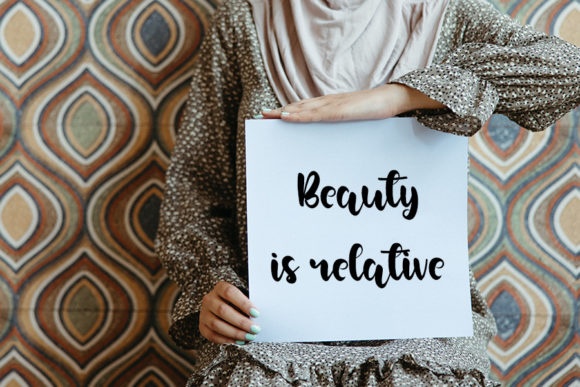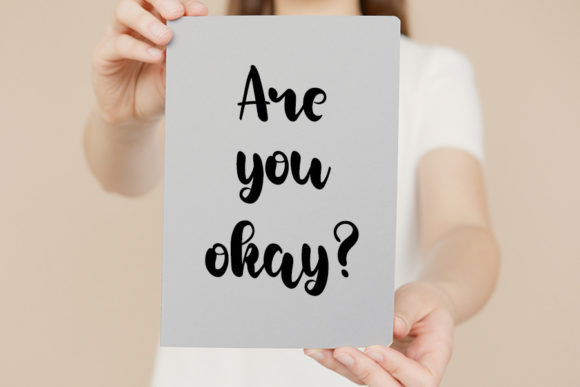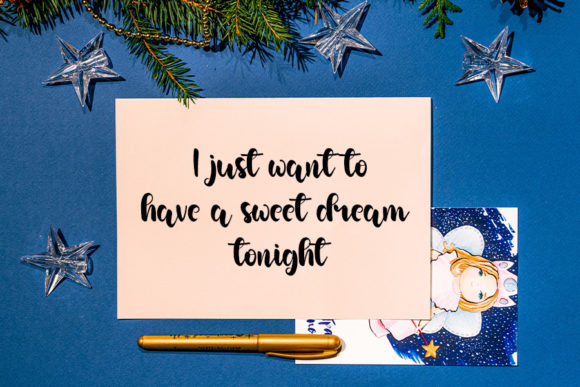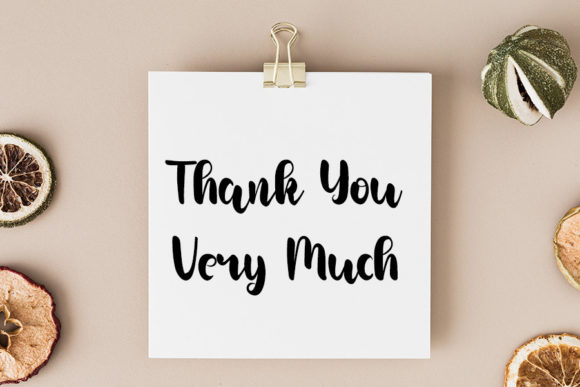
Introducing Beside Font: Elevate Your Design with Elegant Handwritten Style
In the world of design, fonts play a crucial role in conveying messages, expressing emotions, and creating a lasting impression. If you’re a designer, craftsperson, or simply someone who appreciates beautiful typography, you’re in luck! Beside Font is a stunning handwritten font that can instantly elevate your work with its elegant and curvy lines. In this article, we’ll explore the features, benefits, and uses of Beside Font, and why it’s a must-have for your design arsenal.
What is Beside Font?
Beside Font is a lovely handwritten font that boasts a unique and captivating style. Its elegant and curvy lines make it perfect for a wide range of design applications, from product packaging and branding projects to magazine covers, social media graphics, and wedding designs. With Beside Font, you can add a touch of sophistication and personality to your work, making it stand out from the crowd.
Key Features of Beside Font
So, what makes Beside Font so special? Here are some of its key features:
- Elegant and curvy lines: Beside Font’s distinctive style is characterized by its smooth, flowing lines that exude elegance and refinement.
- Handwritten feel: This font has a personal, handwritten touch that adds warmth and personality to your designs.
- Versatile: Beside Font is suitable for a wide range of design applications, from digital to print.
- Easy to read: Despite its elegant style, Beside Font is surprisingly easy to read, making it perfect for body text and headlines.
Uses of Beside Font
Beside Font is an incredibly versatile font that can be used in various design projects. Here are some ideas to get you started:
- Product packaging: Add a touch of elegance to your product packaging with Beside Font. It’s perfect for labels, tags, and branding materials.
- Branding projects: Create a cohesive brand identity with Beside Font. Use it for logos, business cards, and letterheads.
- Magazine covers: Make your magazine covers stand out with Beside Font’s stylish and attention-grabbing style.
- Social media graphics: Use Beside Font to create engaging social media graphics, such as quotes, posters, and flyers.
- Wedding designs: Add a touch of romance to your wedding designs, such as invitations, programs, and place cards.
Why Choose Beside Font?
With so many fonts available, why choose Beside Font? Here are some compelling reasons:
- Unique style: Beside Font’s distinctive style will set your work apart from others.
- Ease of use: This font is easy to read and works well in various design applications.
- Time-saving: With Beside Font, you can create stunning designs quickly and efficiently.
- High-quality: Beside Font is a high-quality font that will enhance your design’s overall look and feel.
Tips for Using Beside Font
To get the most out of Beside Font, here are some tips:
- Experiment with sizes: Play around with different font sizes to find the perfect balance for your design.
- Pair with other fonts: Combine Beside Font with other fonts to create a unique and visually appealing design.
- Use it consistently: Use Beside Font consistently throughout your design to create a cohesive look.
In conclusion, Beside Font is a beautiful handwritten font that can elevate your designs with its elegant and curvy lines. Its versatility, ease of use, and unique style make it a must-have for designers, craftspersons, and anyone who appreciates beautiful typography. Whether you’re working on product packaging, branding projects, magazine covers, social media graphics, or wedding designs, Beside Font is the perfect choice. So, why wait? Get creative with Beside Font today and take your designs to the next level!